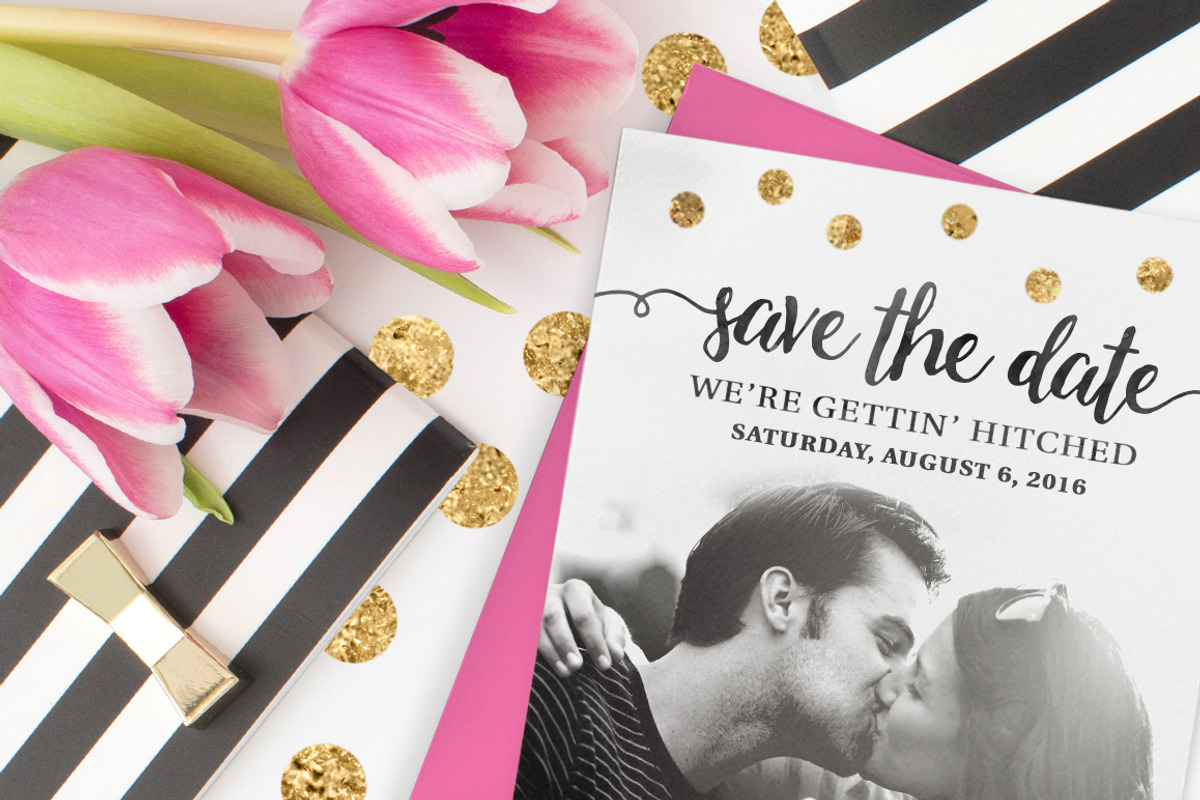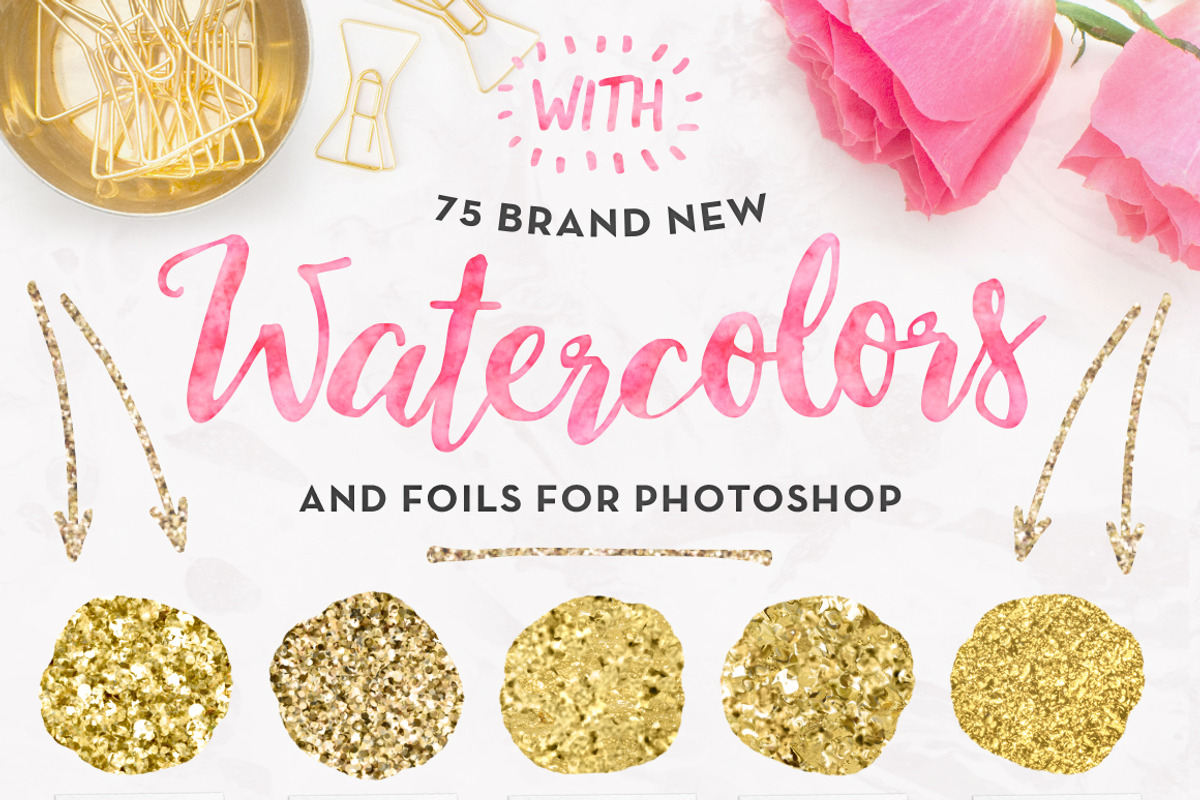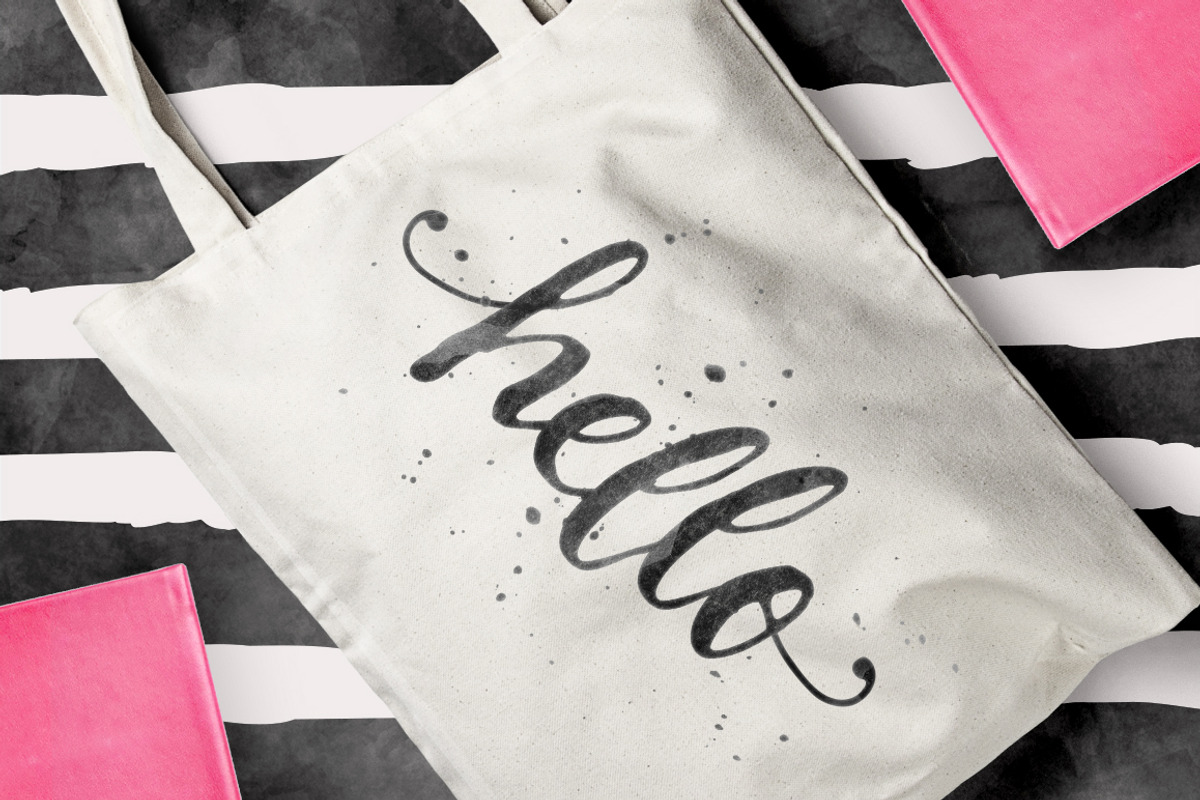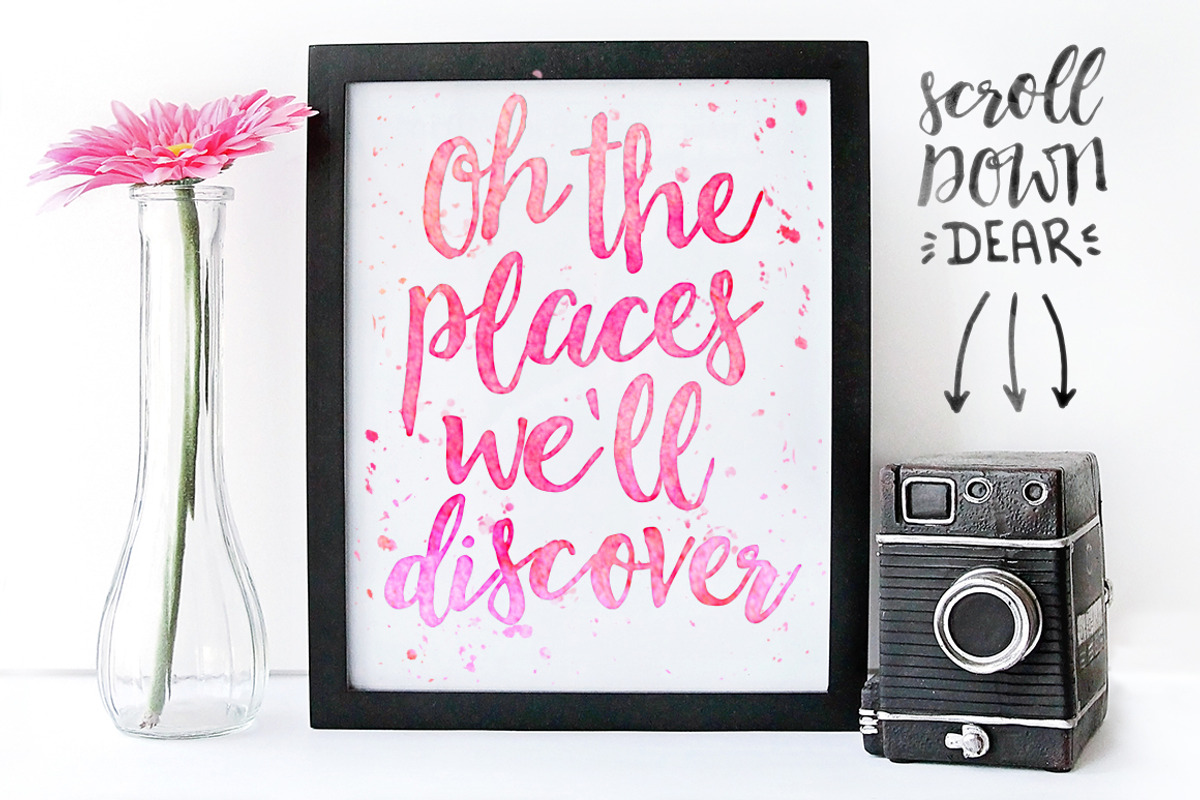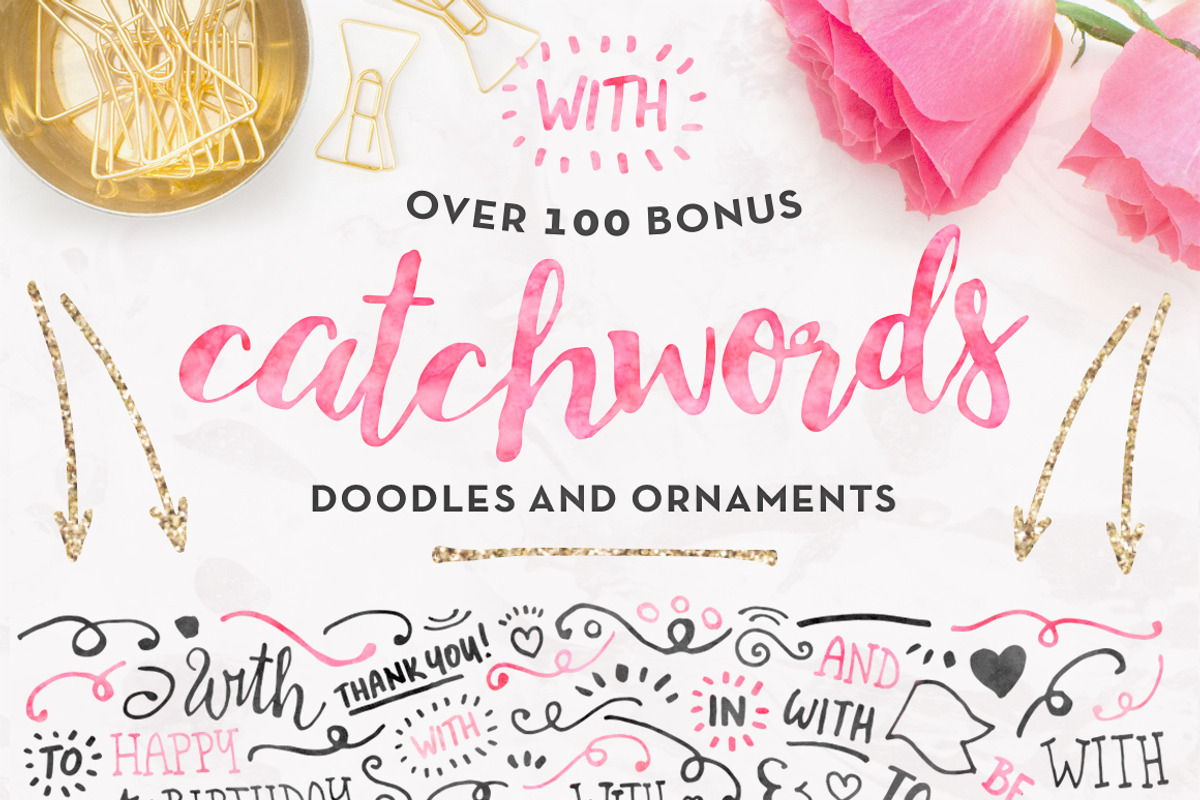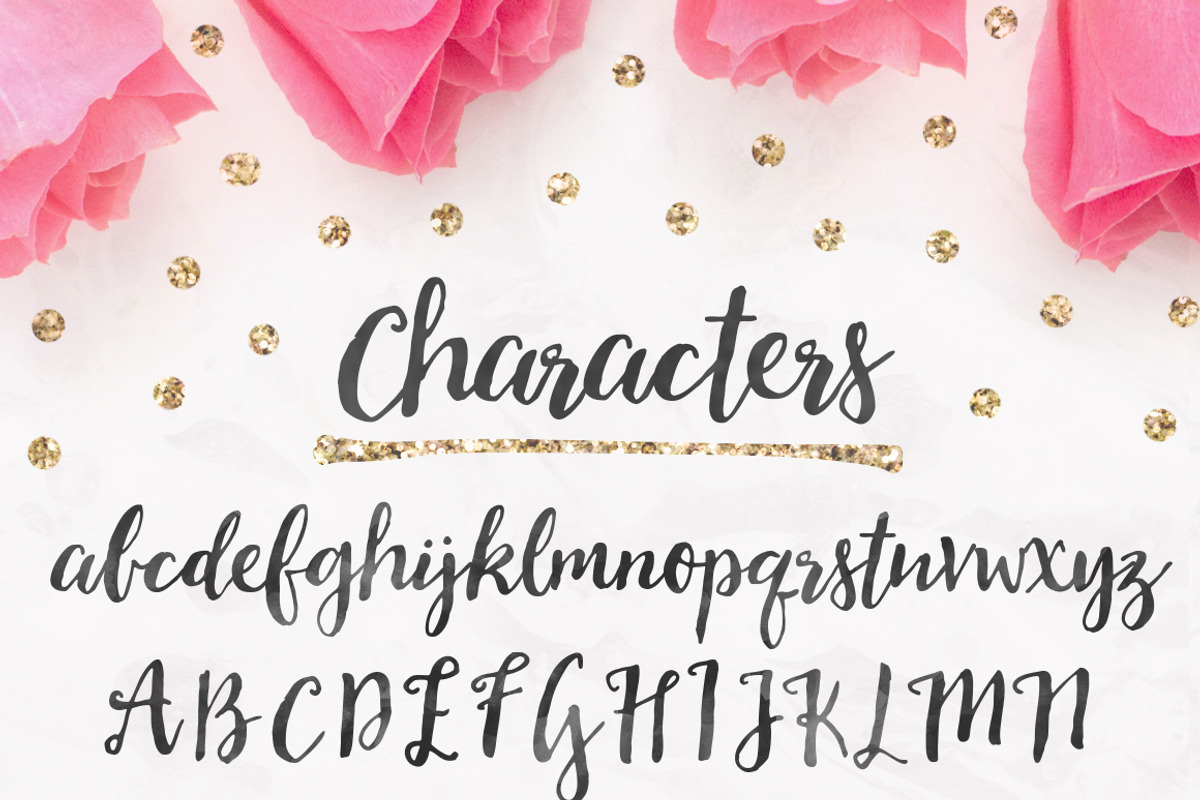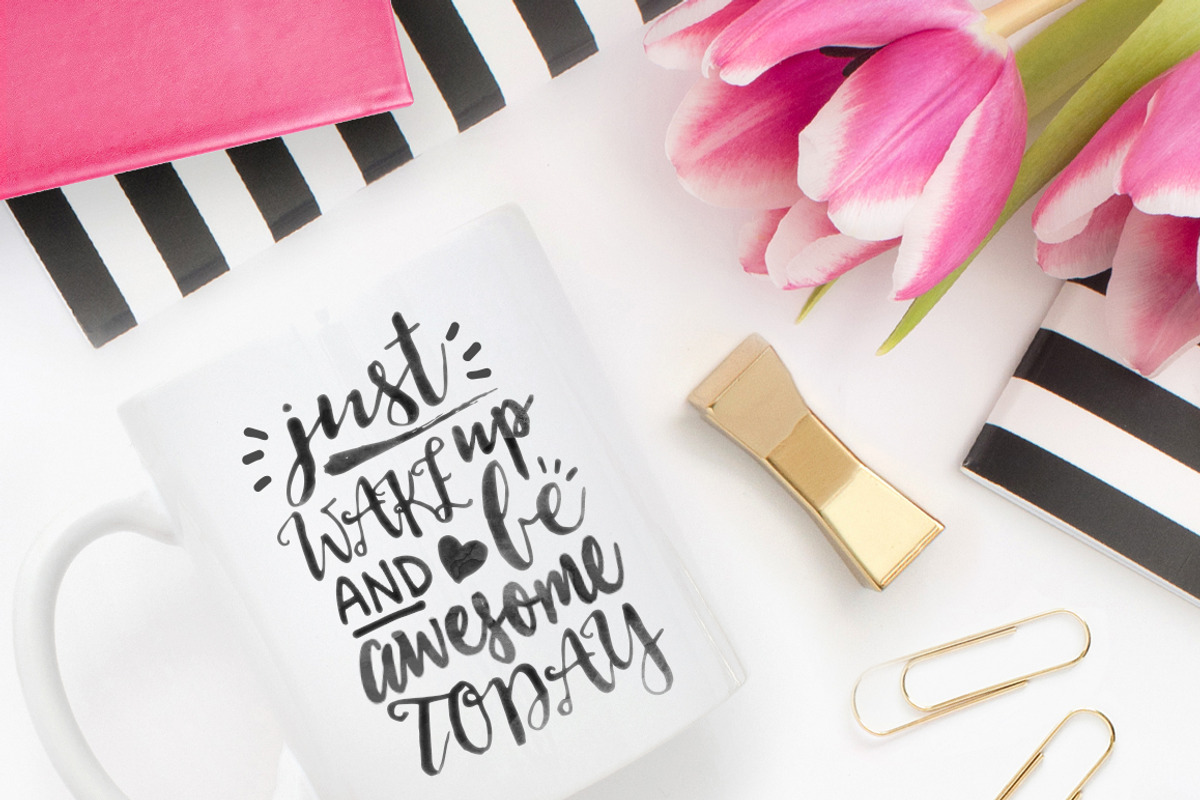
Soulmates Script Typeface + EXTRAS!
Soulmates Script Typeface + EXTRAS! by Pink Coffie is a font selected for branding, posters, packaging, typography.
Why Soulmates Script Typeface + EXTRAS! is worth a look
Soulmates Script Typeface + EXTRAS! by Pink Coffie fits naturally into Branding, posters, packaging, typography.